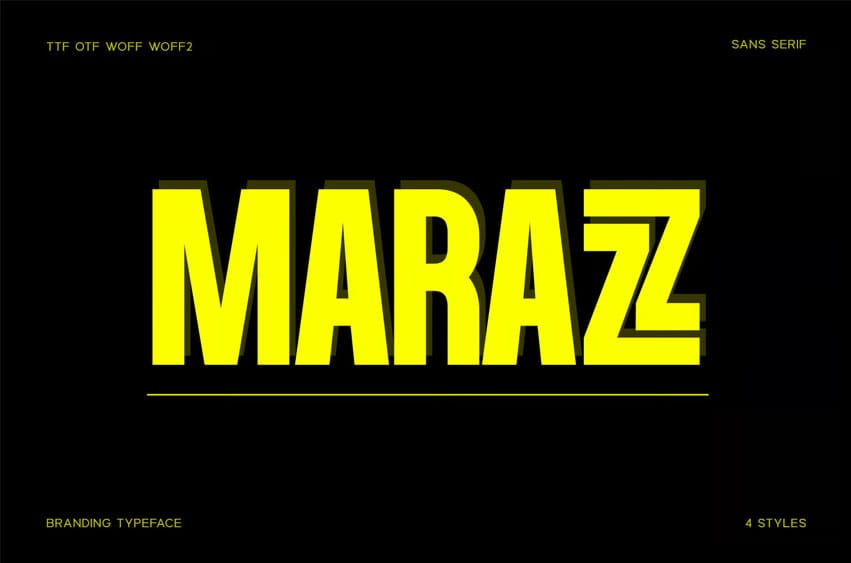
Marazz Font new generation Branding Typeface. Marazz was created with the vision of attracting the audience to your brand. The finest details of this typeface are methodically and mathematically created. Marazz is created with all the tasks of a corporate font and is also for use in a variety of projects, including branding, logos, titles, headlines, screens, displays, and digital ads. & everything else. It’s shown as clean, minimalist, and quirky, yet still purposed to be versatile and easy to read.
** The Typeface includes 4 Weights – Regular, Medium, SemiBold, and Bold are Included. **